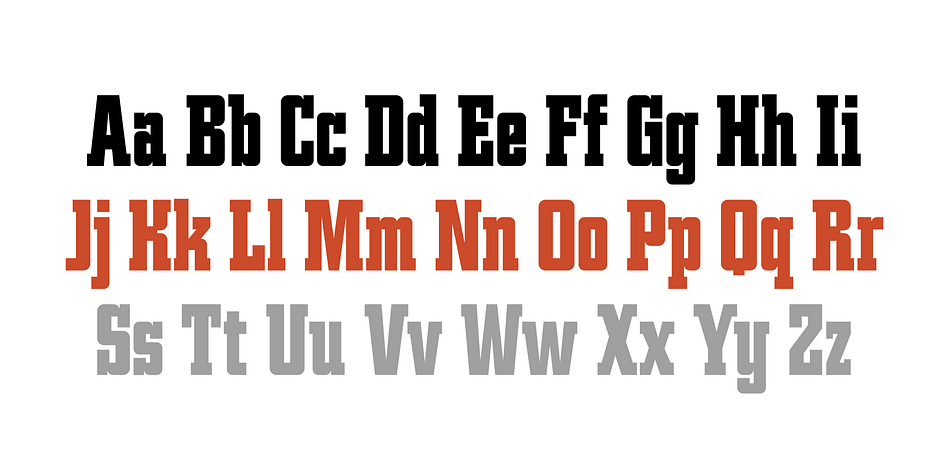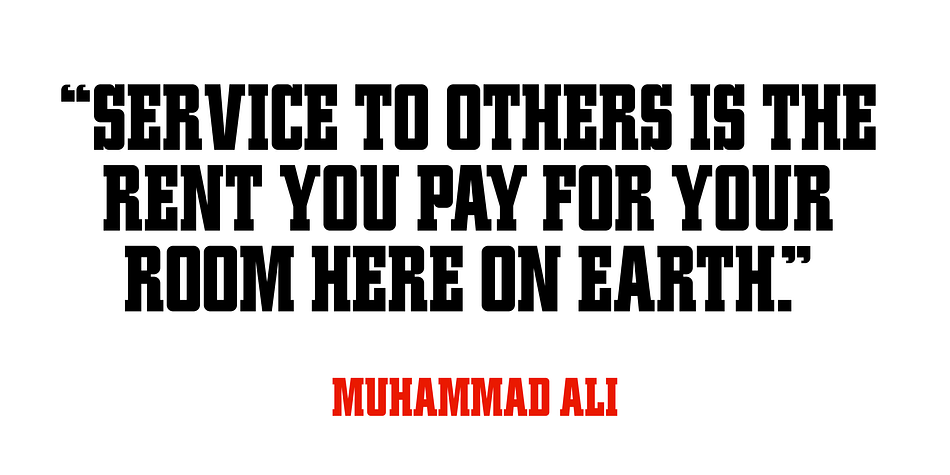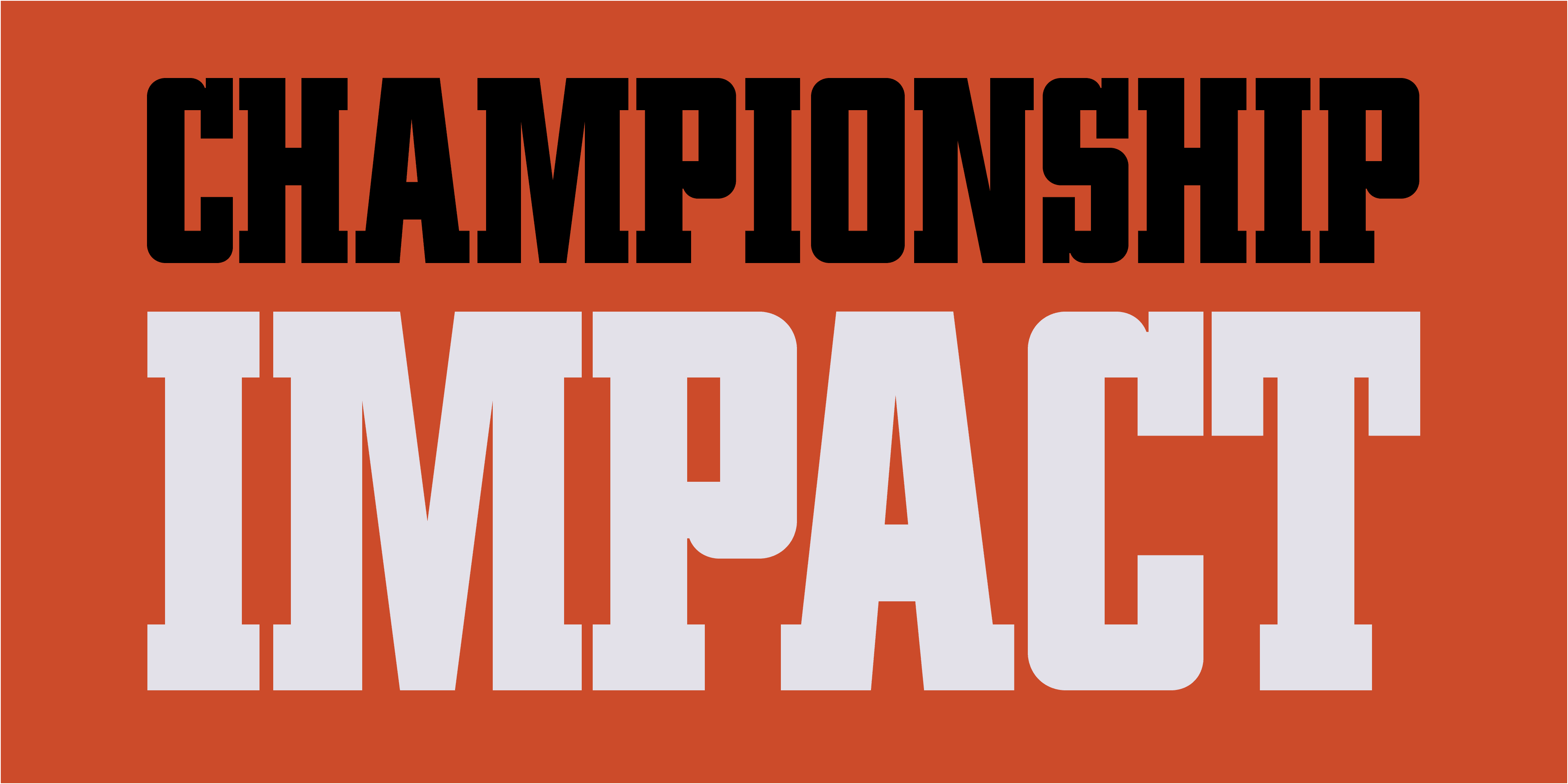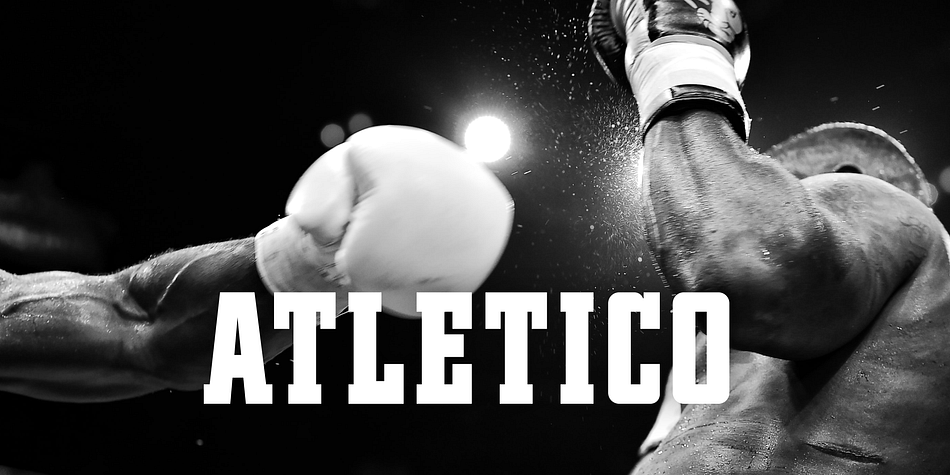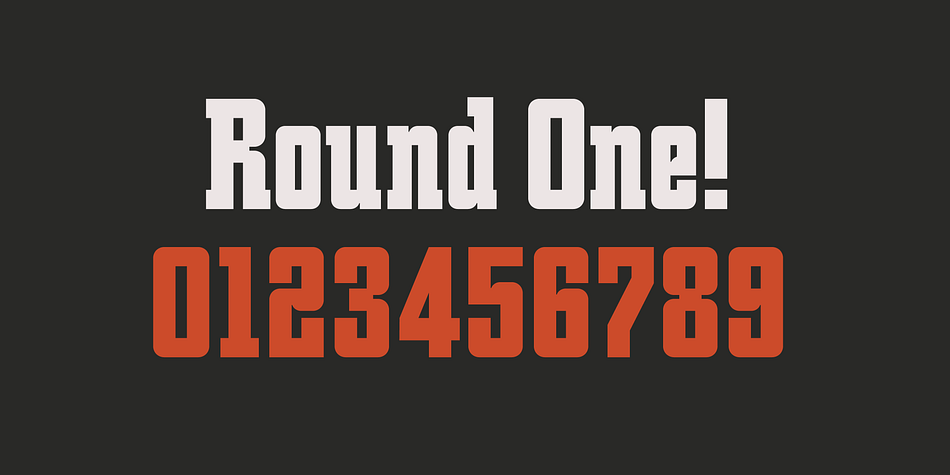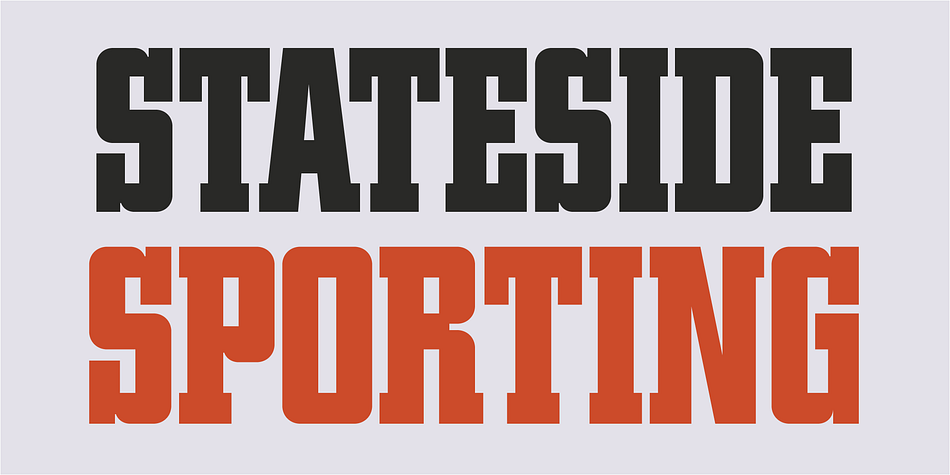
SB Atletico
Designed by Craig Stainton, SB Atletico is a display slab, slab serif and stencil font family. This typeface has three styles and was published by SelfBuild Type Foundry.
SB Atletico is a bold slab serif designed to be used as a high impact display font. It is well suited to sports events, posters and editorial work.
Foundry SelfBuild Type Foundry
Styles Display Slab, Slab Serif, Stencil
Designer Craig Stainton